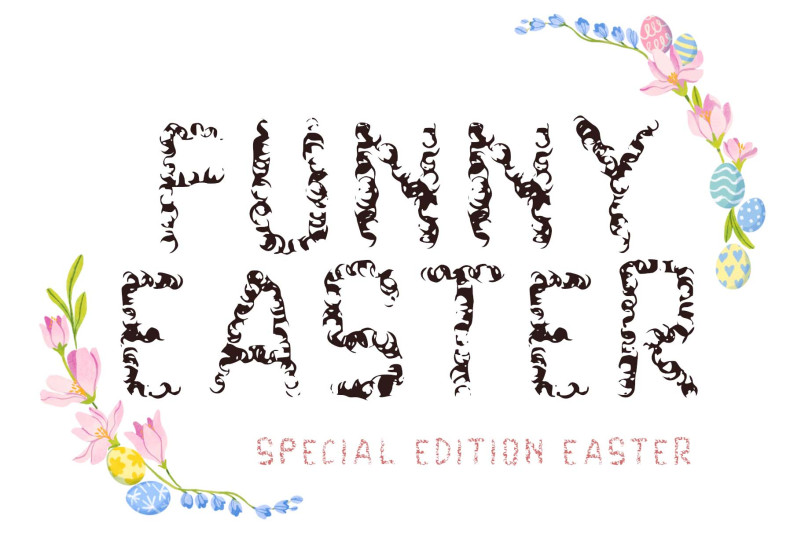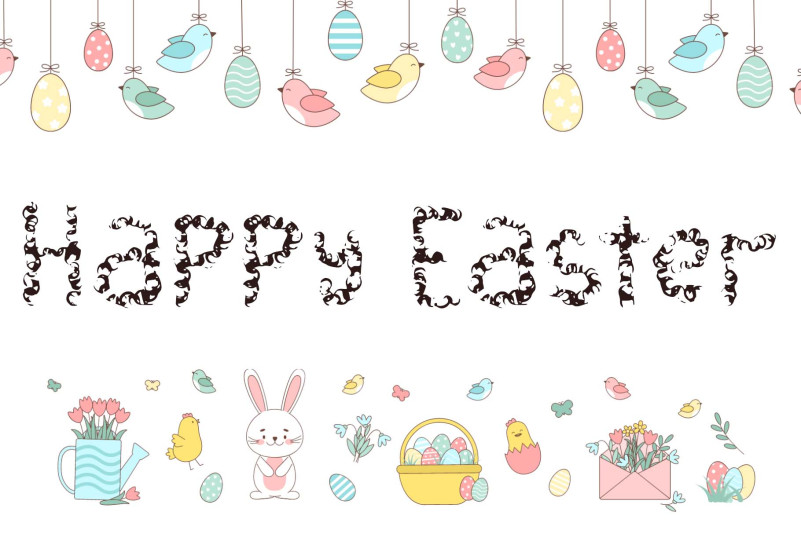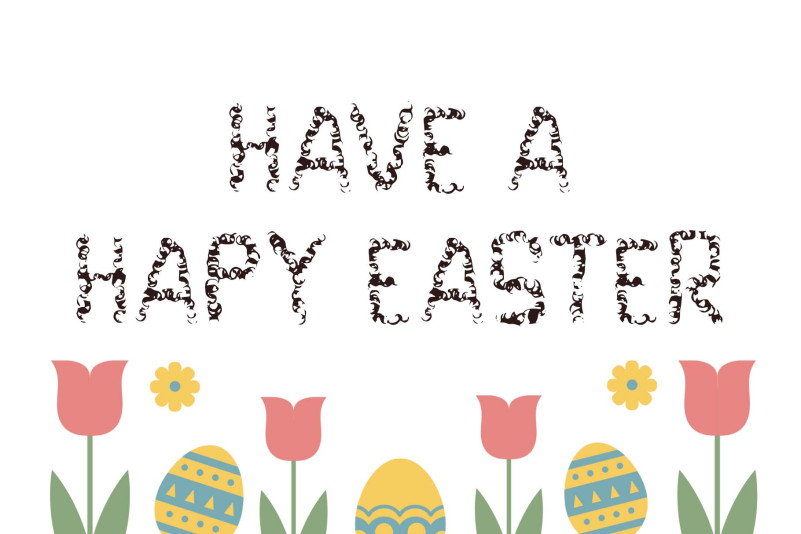
Funny Easter Font
Funny Easter Display Font is a display font created for Easter. This font is very unique with its distinctive shape. It is suitable for Easter, spring, summer, and any project idea that requires a welcoming touch.